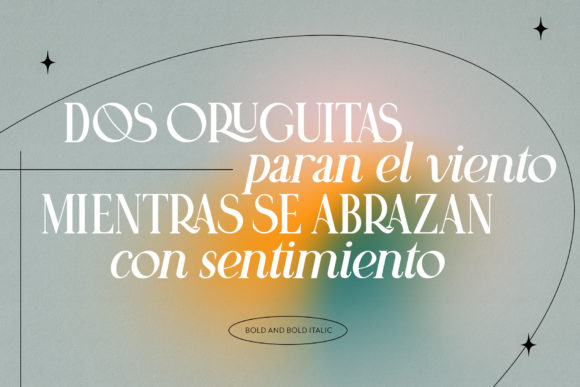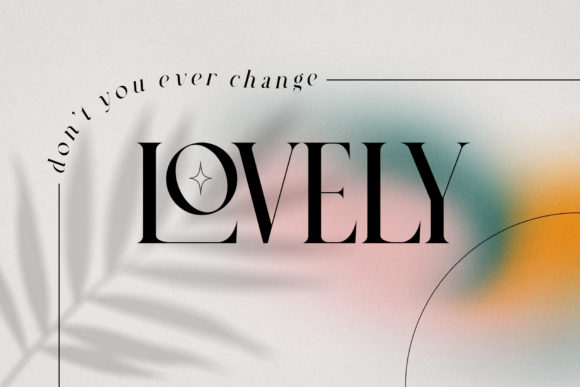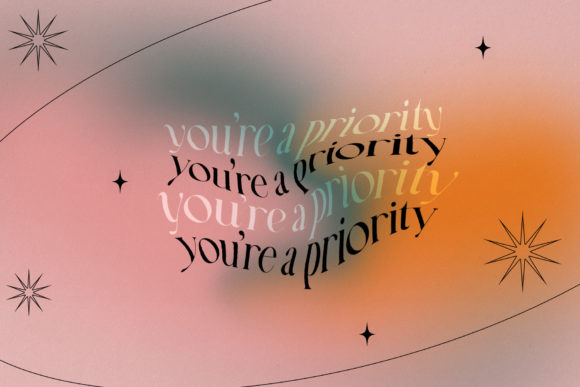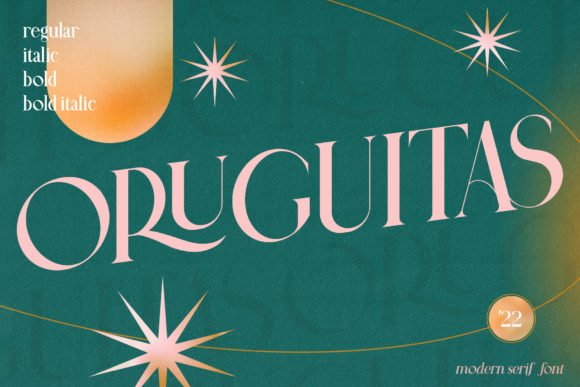
Introduction to Oruguitas Font
Oruguitas is a distinct and stylish serif font.
It has a classy, elegant and modern look that can be used for logos, branding, invitations, stationery, wedding designs, social media posts, and much more .
Oruguitas Font offers exceptional quality and versatility, making it a valuable addition to your design toolkit. Whether you’re creating for personal projects or commercial use, Oruguitas Font delivers professional results.